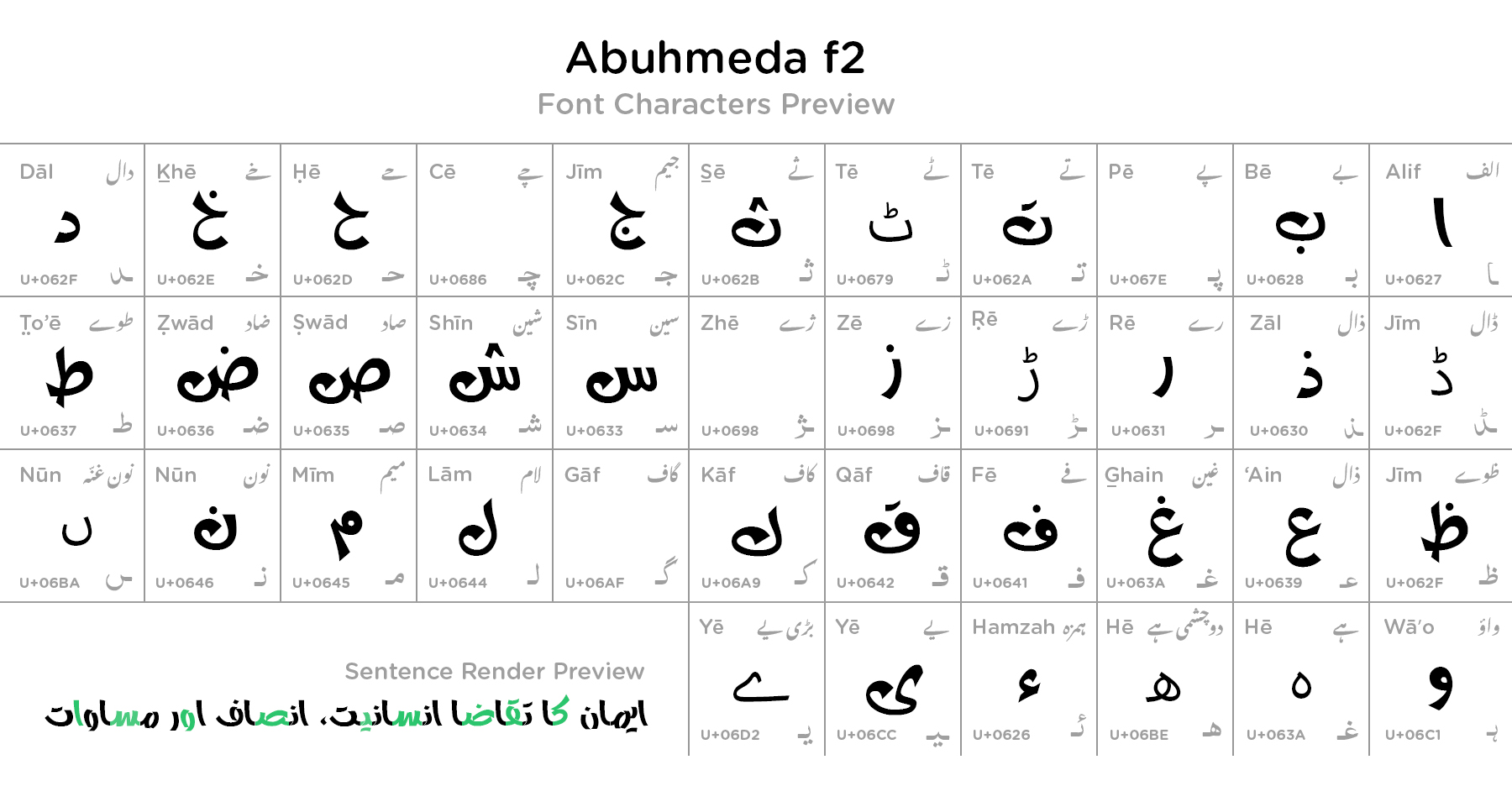
Abuhmeda f2, designed by Bahlul Abuhmeda, is a vibrant cartoon-style font that displays liveliness with every corner. Introduced in 2003, this font showcases rounded, filled letters, making it particularly appealing to a younger audience. Developed by Bahlul Abuhmeda under HADARI GRAPHICS, it is a versatile option for typographic projects seeking clarity and legibility in Latin characters. It seamlessly integrates into various design platforms with a list of 475 characters and 255 glyphs. With a bold weight and medium width, it caters to short text blocks, prioritizing visuals over readability. While its primary support lies in Latin scripts and symbols, it offers partial compatibility with Urdu and Persian. Unicode blocks like Private Use Area, Basic Latin, and Latin-1 Supplement ensure their adaptability across different text encoding standards.
In terms of appearance, Abuhmeda f2 offers a quirky charm. Its uneven spacing and variable character sizes add personality to designs. The filled, slightly overlapping letters contribute to its lively characters. It shares similarities with its counterpart, Abuhmeda Free, differing mainly in edge sharpness and letter structure. Despite its unconventional look, this font finds broad application in various design projects. It enhances educational materials, fosters a playful setting in children’s digital spaces, captures attention in toy packaging, and complements artwork in comics and animations.